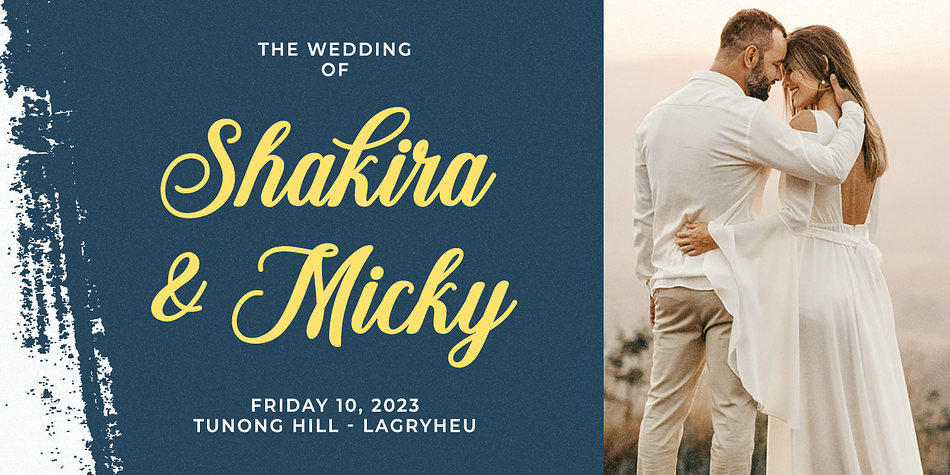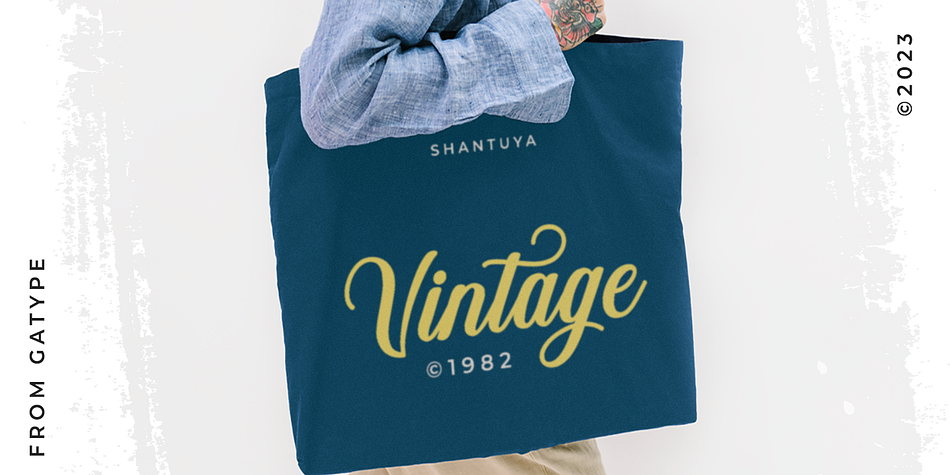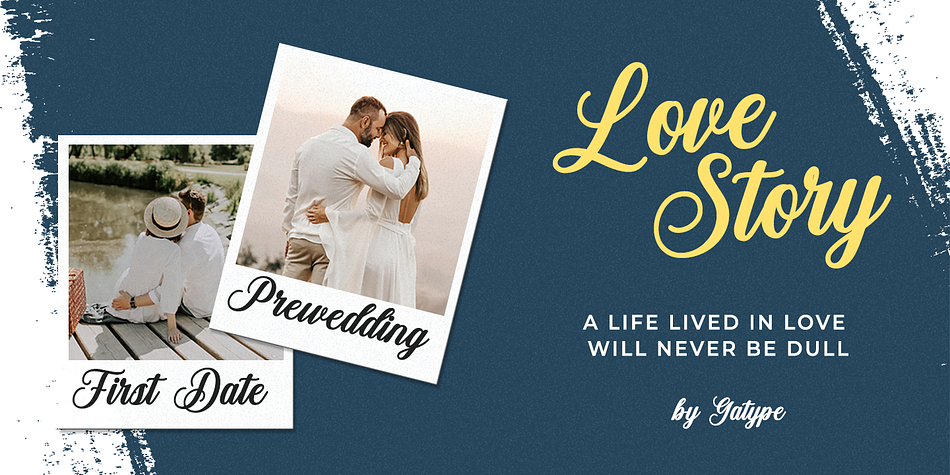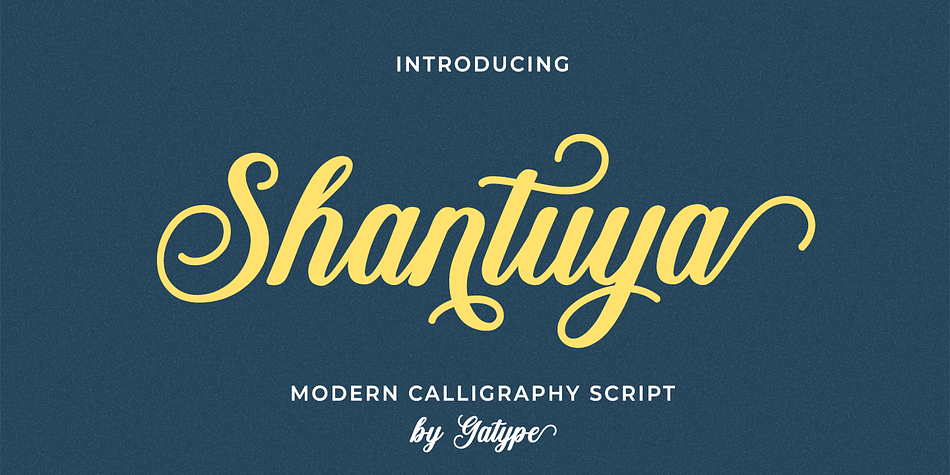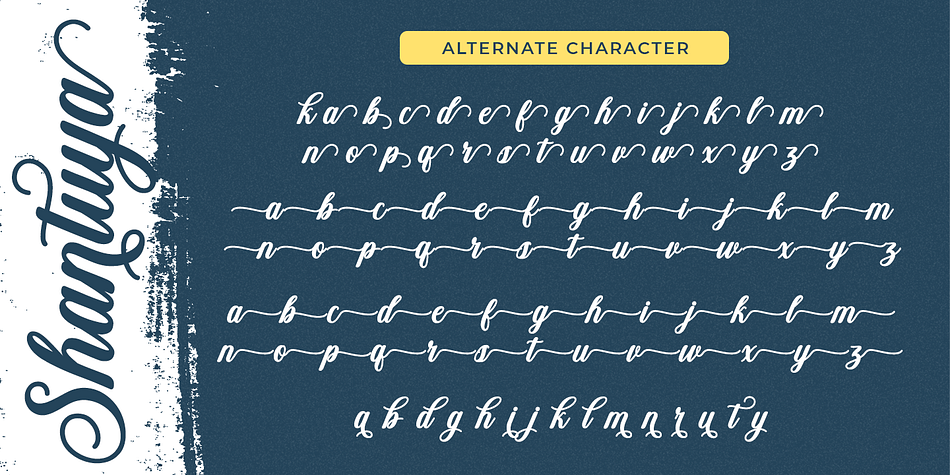
Shantuya
Shantuya is a brush script font family published by Gatype.
Shantuya is a beautiful handwritten font. Its casual charm makes it seem very down-to-earth, easy to read, and, ultimately, incredibly versatile. Shantuya will look amazing in any context, whether it’s used on a busy background or as a standalone title!